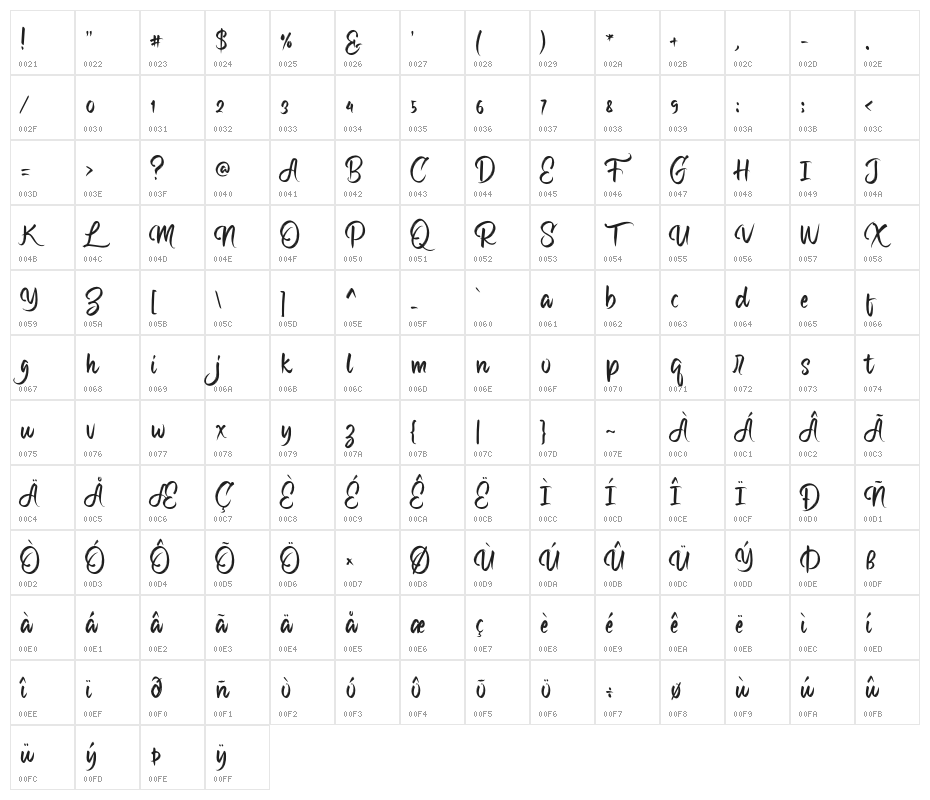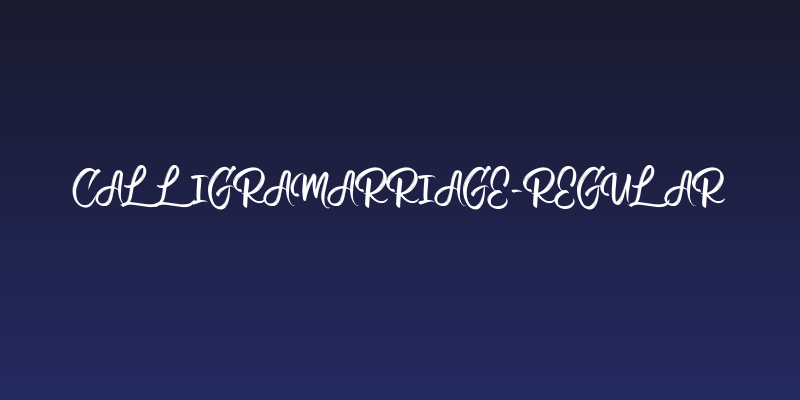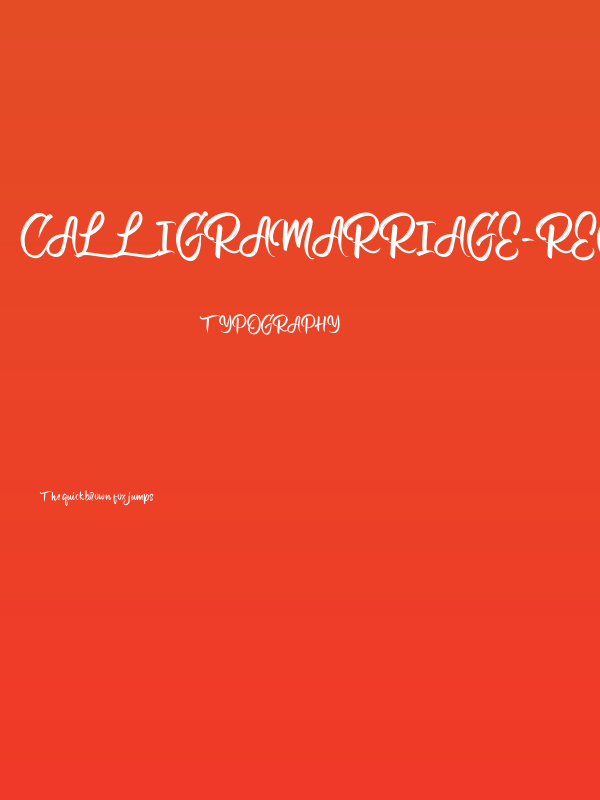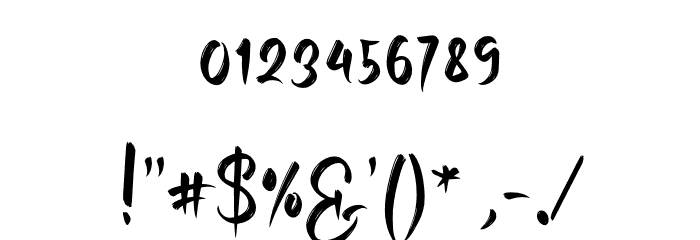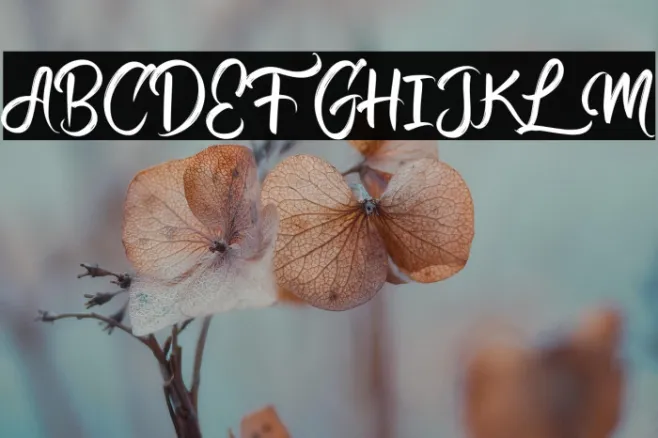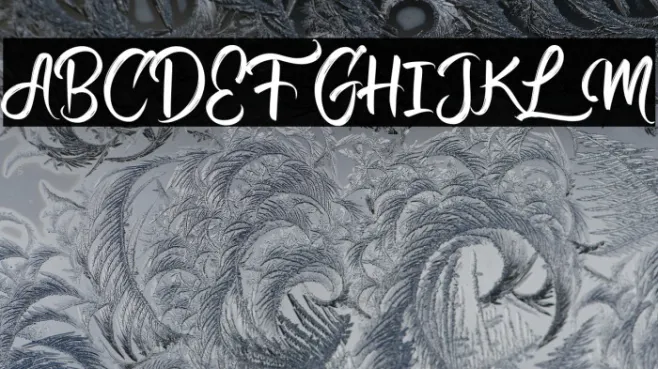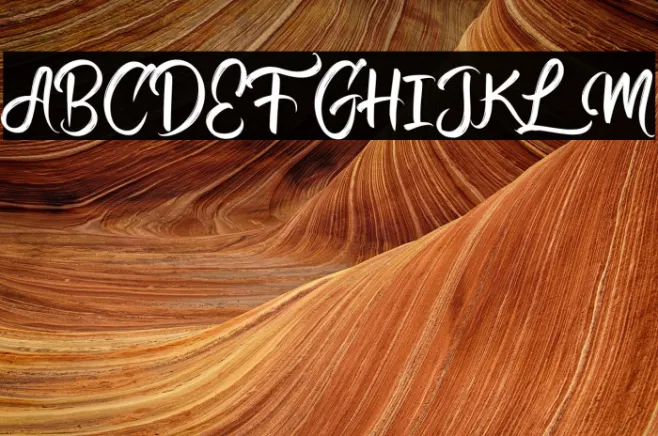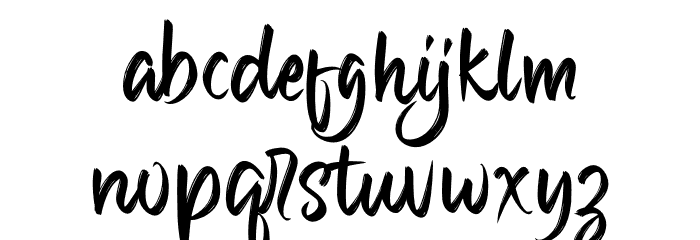
CalligraMarriage-Regular Font
CalligraMarriage-Regular Description
This font exudes elegance and sophistication, characterized by its flowing, cursive style that mimics the fluidity of calligraphy. The uppercase letters are ornate, with sweeping curves and flourishes that add a touch of drama and grace. The lowercase letters maintain a consistent style, with smooth, connected strokes that enhance readability while retaining a decorative flair. The numerals are stylish yet clear, complementing the overall aesthetic. Special characters are thoughtfully designed, integrating seamlessly with the font's artistic theme. This font is perfect for projects that require a personal, artistic touch.